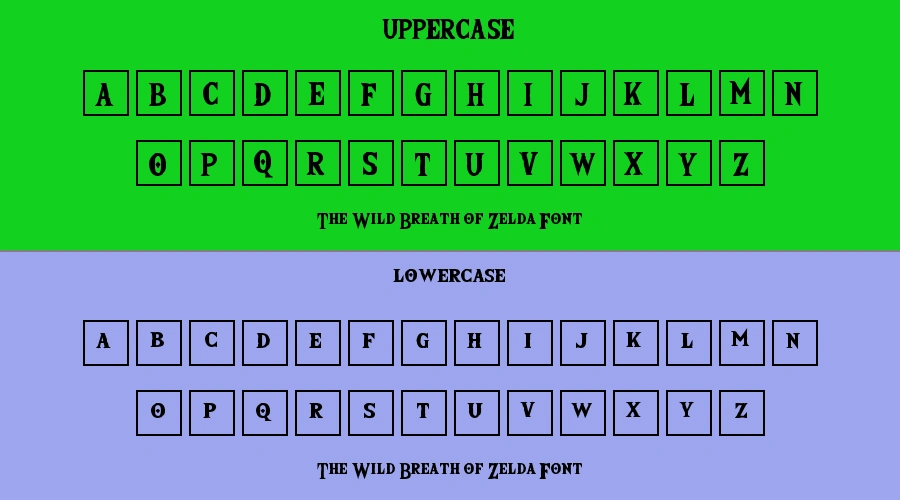
About The Wild Breath of Zelda Font
When typographic excellence matters most, The Wild Breath of Zelda Font delivers through its thoughtful blend of rhythmic patterns and durability. Specially crafted for motion graphics, it offers the adaptability and practical utility required for sophisticated design work. Every detail serves a purpose.
The character set showcases thoughtful details like tapered strokes alongside functional isolated forms. This proves especially valuable in reference books, where color consistency directly influences results. Particular attention was paid to aperture size and character during development.